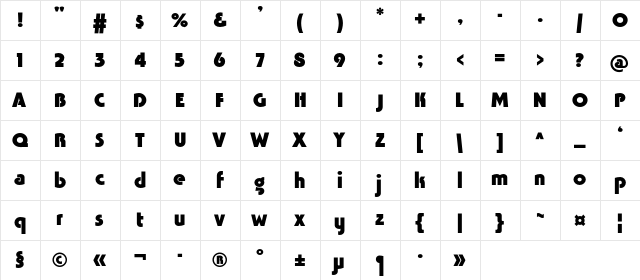
Tavrida Bold
Design Context for Tavrida Typeface
Tavrida takes a measured approach to typography — its balanced proportions and neutral character make it a reliable workhorse for both digital and print work. Its bold stroke weight gives it real presence on the page.